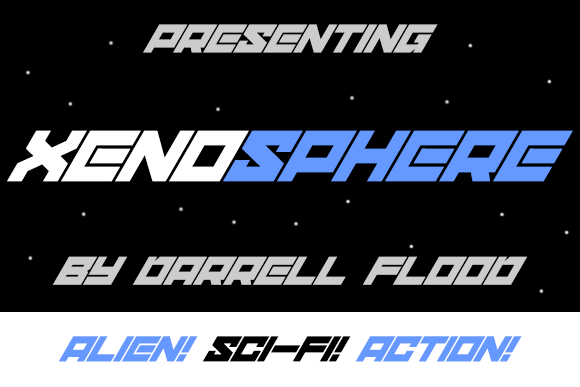
Xenosphere
Xenosphere Font
Xenosphere is an angular, modern font with a sci-fi style. Xenosphere is full of dynamic movement and expression. Perfect for high impact space adventures!